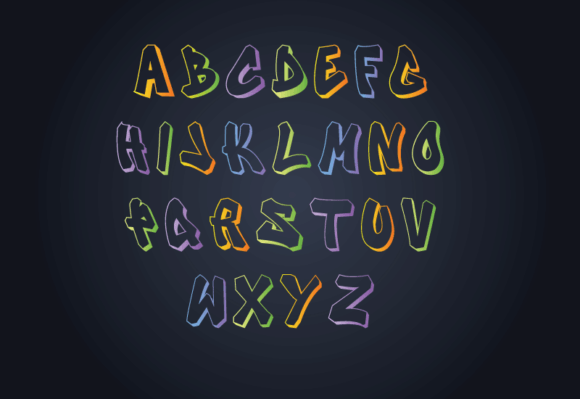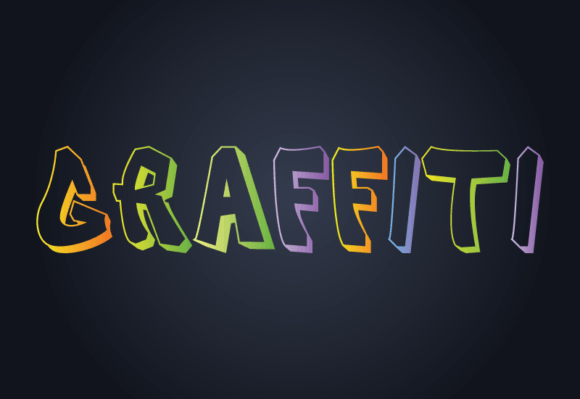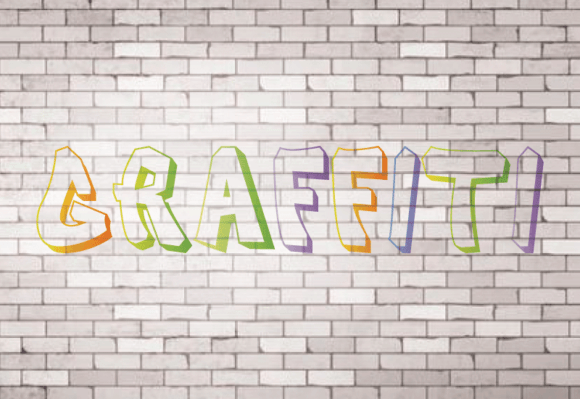
Unleashing Urban Creativity: The Power of Graffiti Font
Graffiti is an urban-style modern display font that has taken the world of creative projects by storm. Its bold and daring design makes it a perfect addition to any urban youth art project, allowing it to stand out in a crowd. In this article, we will explore the world of Graffiti Font, its unique features, and how it can elevate your creative projects to new heights.
The Essence of Graffiti Font
Graffiti Font is a daring dance of contrasts and creativity. Each letter is carefully crafted with bold decisions, its edges sharp and confident, as if sculpted by a master craftsman’s chisel. The clean, angular incisions create a captivating interplay of light and shadow, lending dynamic energy to every character. This font is not just a collection of letters; it’s an experience, a statement, and a reflection of urban culture.
Key Features of Graffiti Font
- Urban-style modern display font: Graffiti Font is designed to make a statement, with a modern and edgy look that screams urban style.
- Bold and confident design: Each letter is carefully crafted with sharp edges and clean lines, giving it a confident and daring look.
- Dynamic energy: The interplay of light and shadow creates a dynamic energy, making every character stand out.
- Perfect for urban youth art projects: Graffiti Font is ideal for projects that require a bold and edgy look, such as posters, flyers, and social media graphics.
How to Use Graffiti Font in Your Projects
Adding Graffiti Font to your urban youth art projects is easy and can make a significant impact. Here are some tips on how to use it effectively:
- Pair it with bold colors: Graffiti Font looks great with bold and bright colors, which can enhance its urban style and dynamic energy.
- Experiment with different sizes: Graffiti Font can be used in various sizes, from large headings to smaller text, making it versatile for different applications.
- Mix it with other fonts: Graffiti Font can be paired with other fonts to create a unique and interesting contrast, adding depth to your design.
Benefits of Using Graffiti Font
Using Graffiti Font in your creative projects can have several benefits, including:
- Instant recognition: Graffiti Font is bold and eye-catching, making it perfect for projects that require instant recognition.
- Urban credibility: Graffiti Font is associated with urban culture, making it ideal for projects that require an edgy and modern look.
- Creative freedom: Graffiti Font is versatile and can be used in various contexts, giving you the creative freedom to experiment and try new things.
Graffiti Font is a powerful tool for designers and crafters who want to add an urban touch to their creative projects. Its bold and daring design, dynamic energy, and versatility make it a perfect addition to any urban youth art project. By understanding its key features, how to use it effectively, and its benefits, you can unlock the full potential of Graffiti Font and take your creative projects to new heights.
Get Ready to Unleash Your Creativity
With Graffiti Font, the possibilities are endless. Whether you’re a designer, crafter, or artist, this font can help you express your creativity and bring your ideas to life. So, get ready to unleash your creativity and take your urban youth art projects to the next level with Graffiti Font.